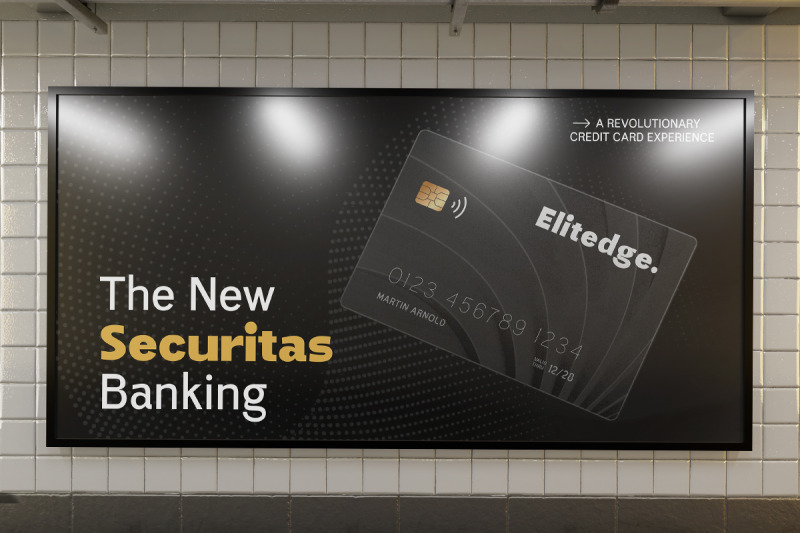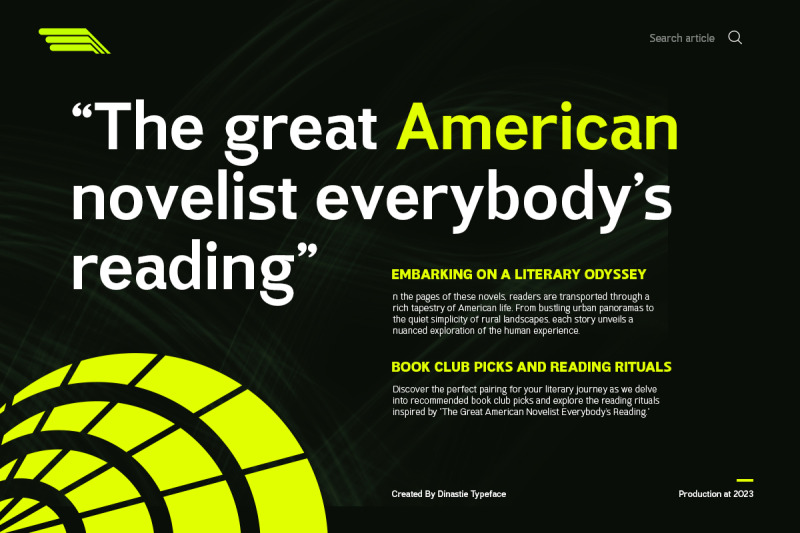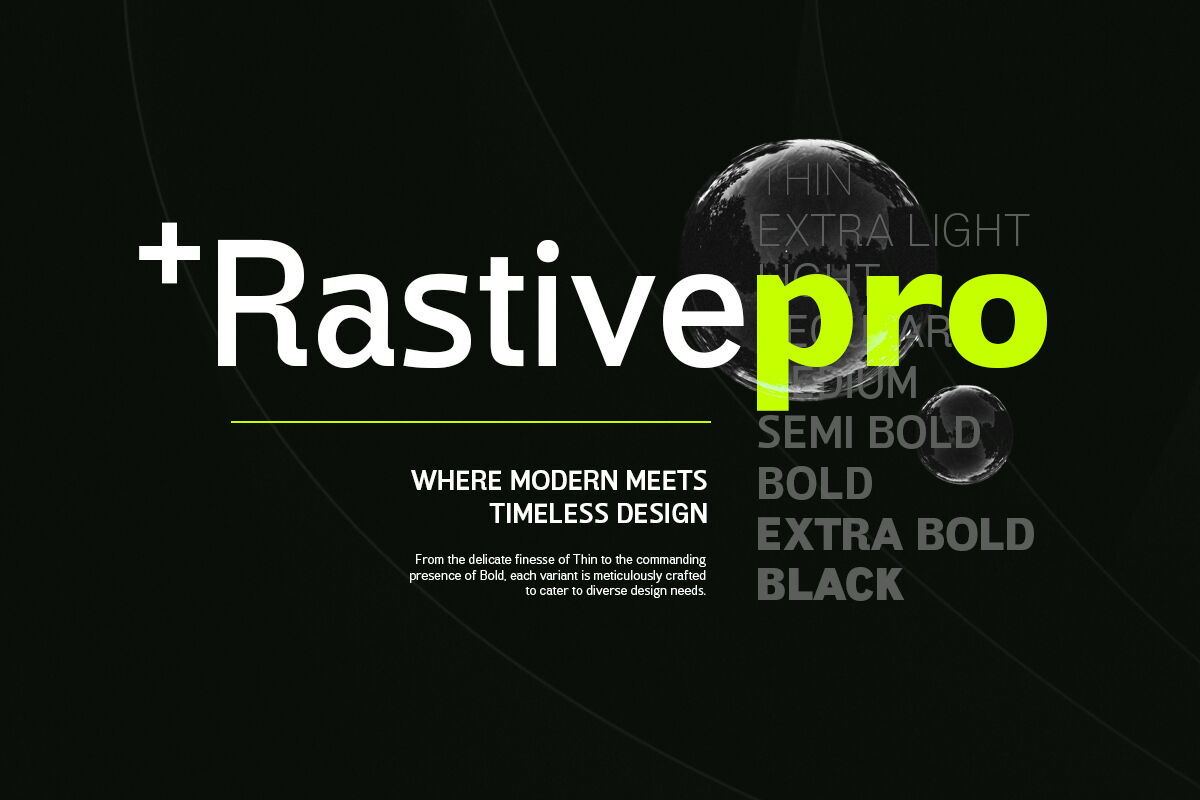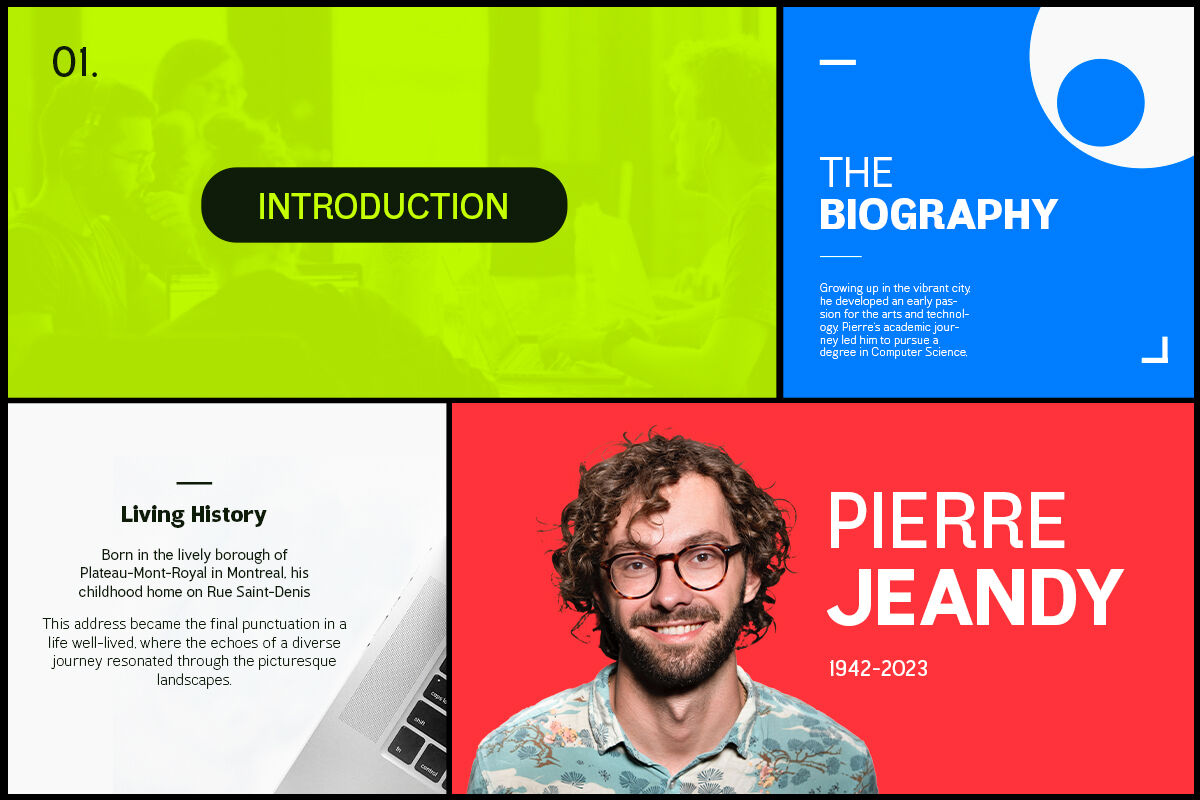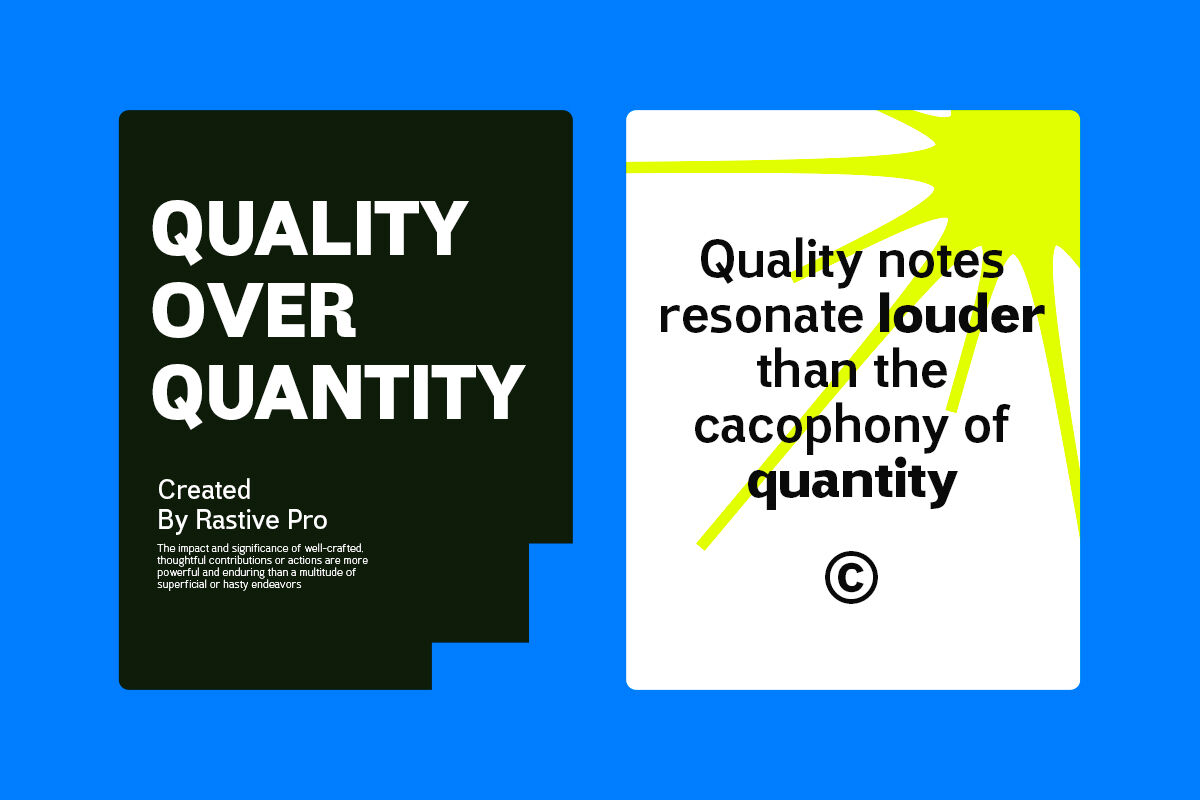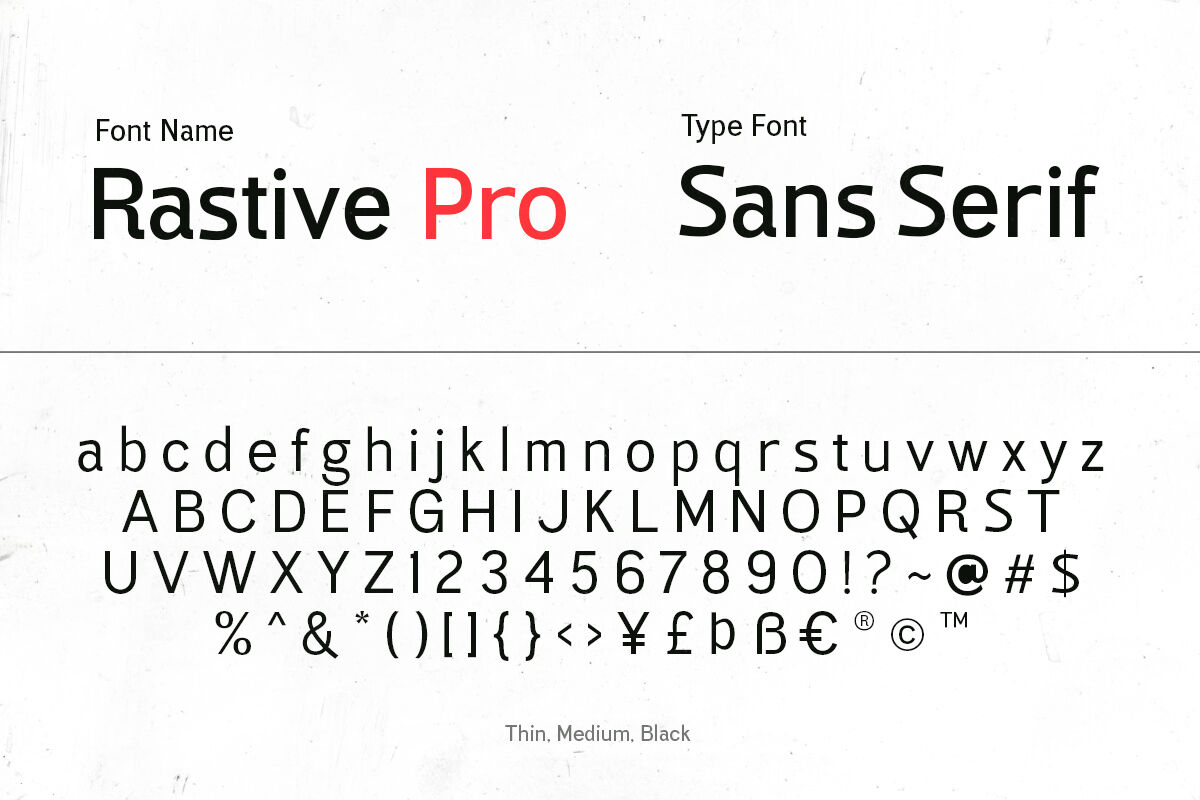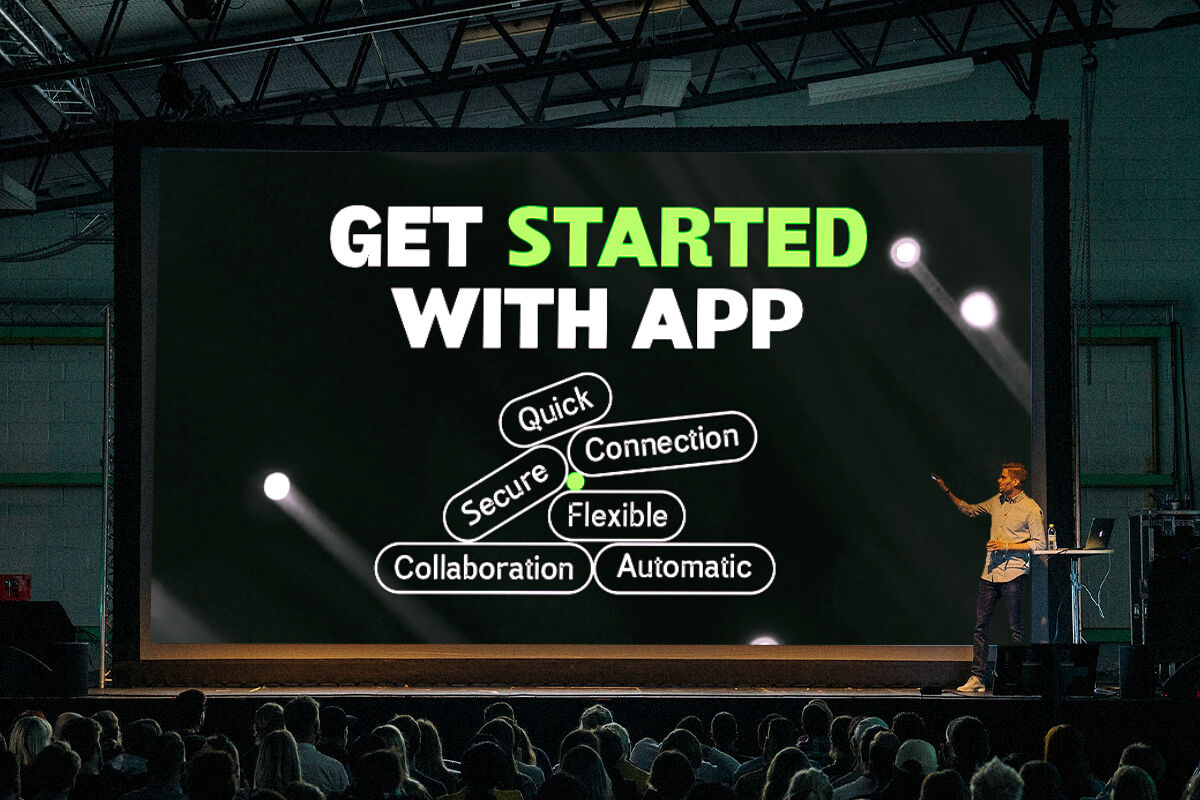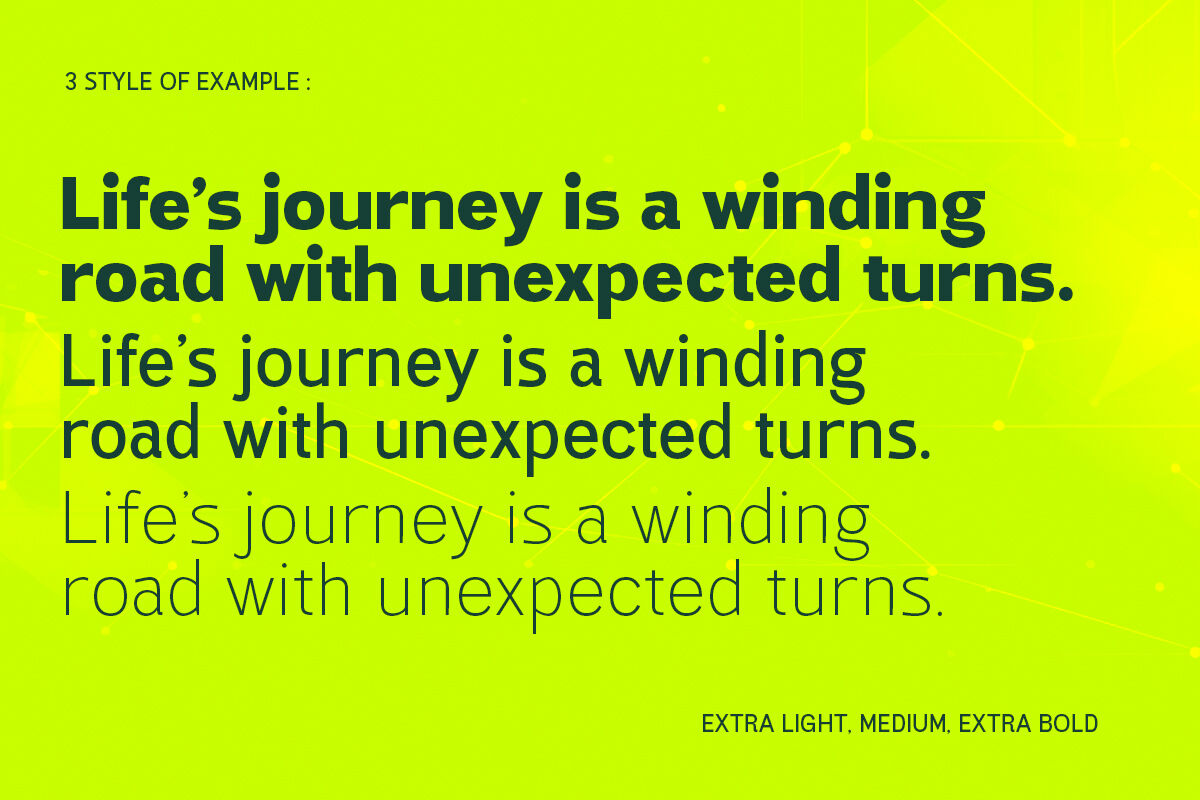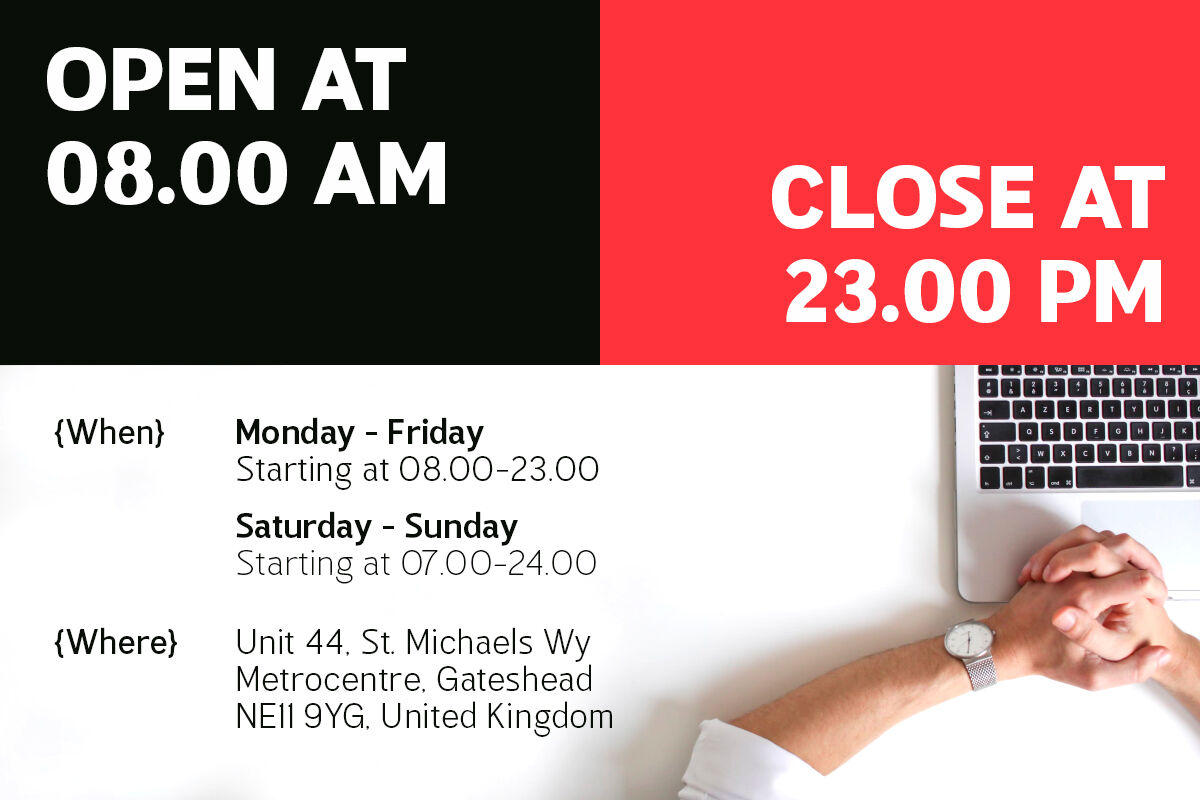
Rastive Sans Serif (9 FONTS)
Introducing Rastive, basic sans serif with modern look designed to offer a clean, versatile, and contemporary typeface suitable for a wide range of design applications. With 9 distinct weights, from Thin to Black, it provides flexibility and adaptability for any project. This font family also support multi language!